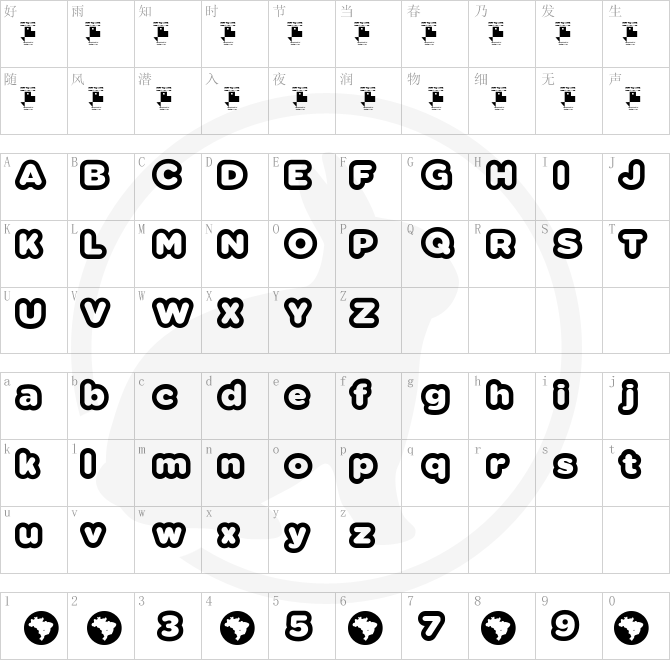
• Font Name:Vacaciones
• Subfamily:deFharo: Vacaciones: 2015
• Full Name:Vacaciones
Vacaciones.ttf is a very beautiful artistic font, Vacaciones.ttf is widely used in the design and printing of various books and pictures,Vacaciones.ttf has a strong visual impact,Vacaciones.ttf is a commonly used font in newspapers, magazines and books, and is used in posters, e-commerce Poster design, store design, logo design, font design and other fields.Vacaciones.